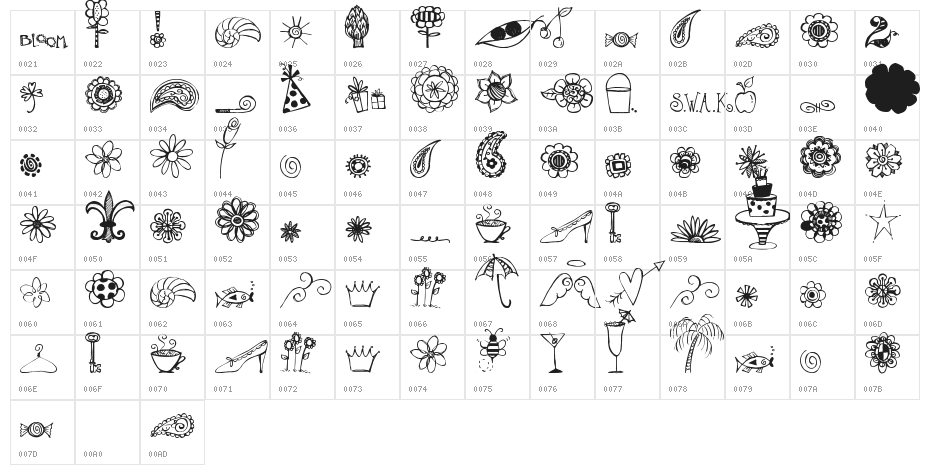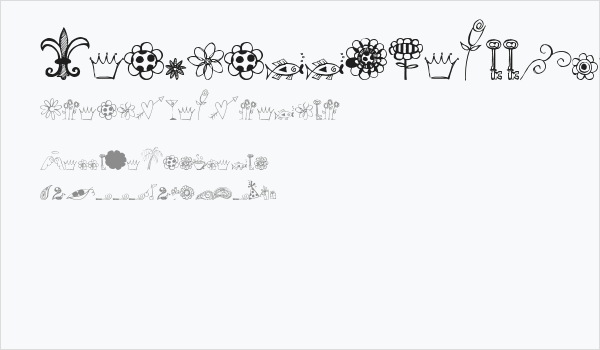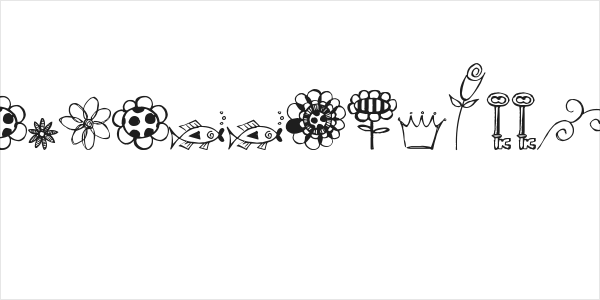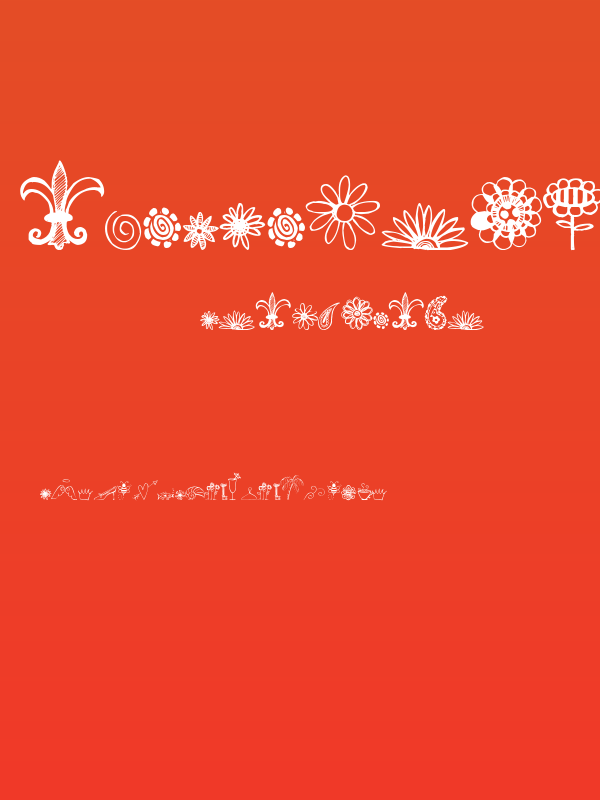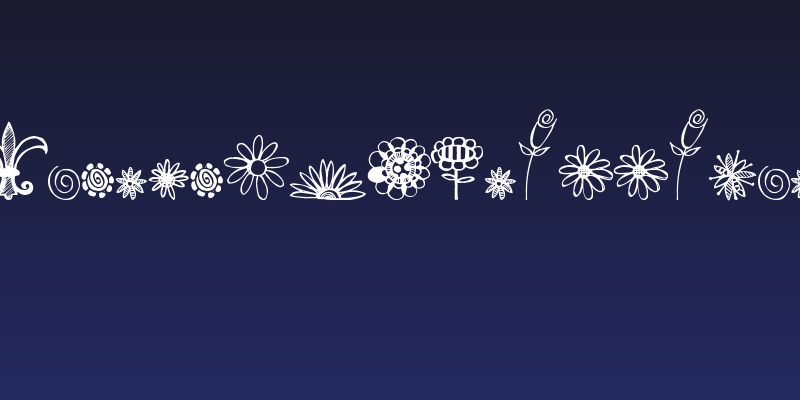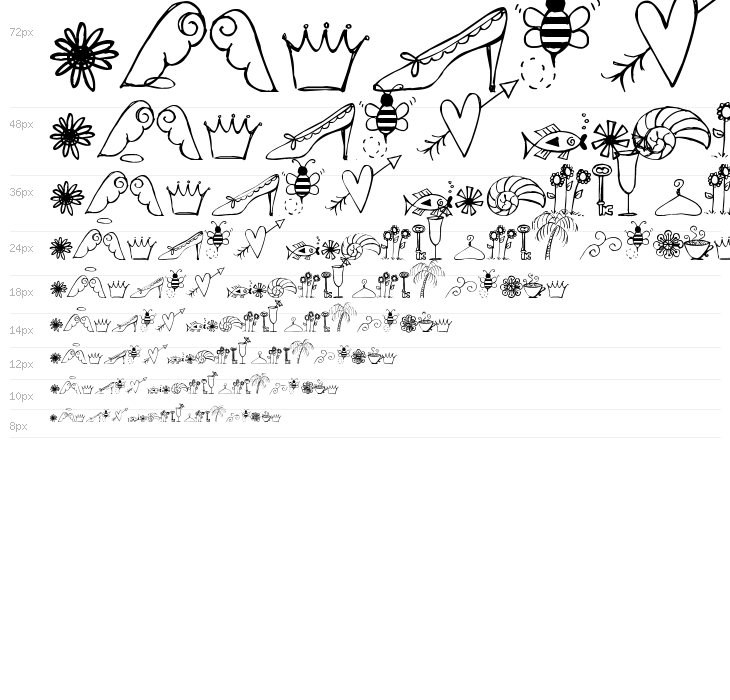
Pea Stacy's Doodles Font
Pea Stacy's Doodles Description
This collection features a whimsical and playful assortment of doodles, including flowers, paisleys, crowns, shoes, and various other decorative elements. Each design is hand-drawn, giving it a unique and artistic feel. The doodles are characterized by their intricate details and charming imperfections, which add to their overall appeal. These elements are perfect for adding a touch of creativity and fun to any project, whether it's for personal use or professional design work. The variety of motifs allows for versatile application, making it suitable for a wide range of themes and styles.
Overall StyleWhimsical, Artistic
Use CaseDecorative elements, Artistic projects
Proposed ProjectsIdeal for scrapbooking, greeting cards, invitations, and creative art projects.